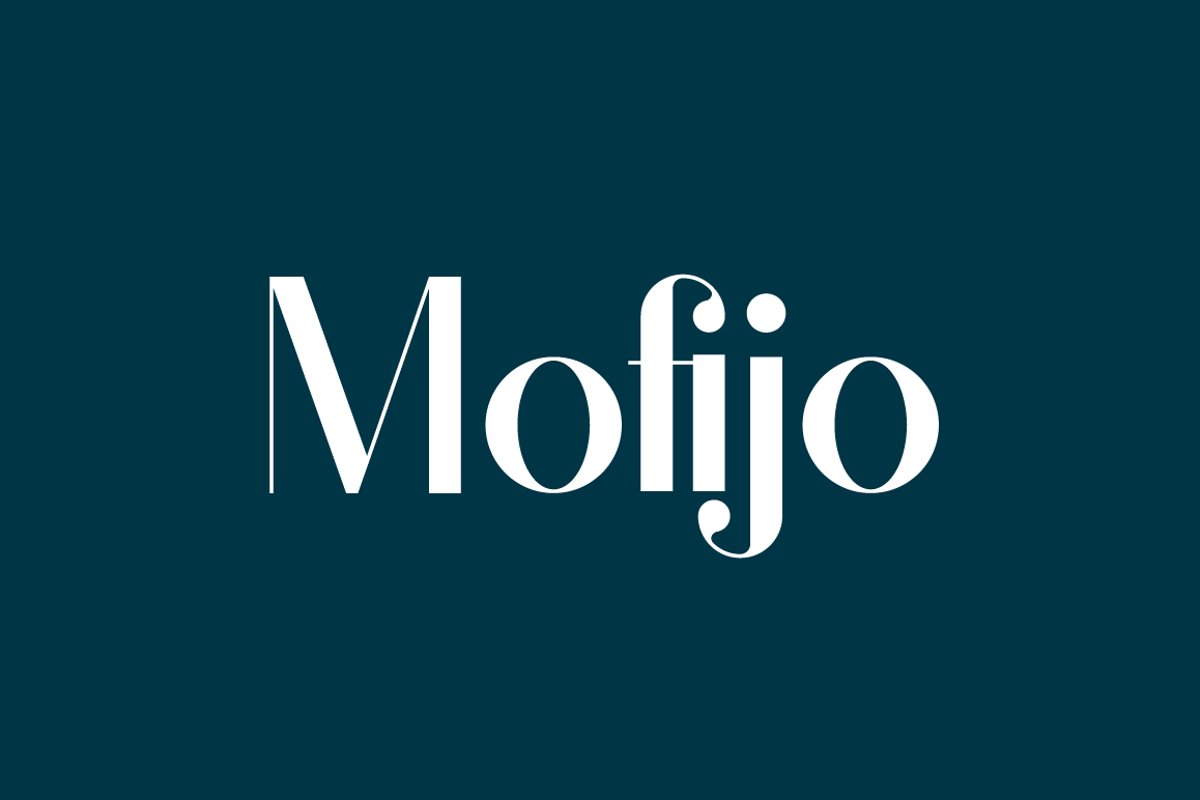
Mofijo
Mofijo is a modern and sweet display font. Masterfully designed to become a true favorite, this font has the potential to bring each of your creative ideas to the highest level!